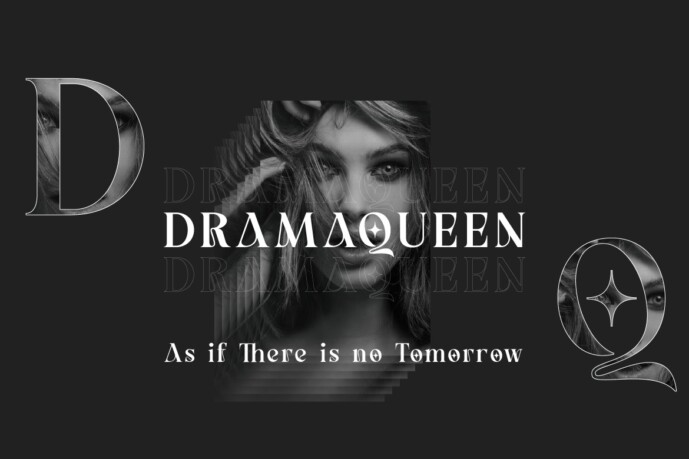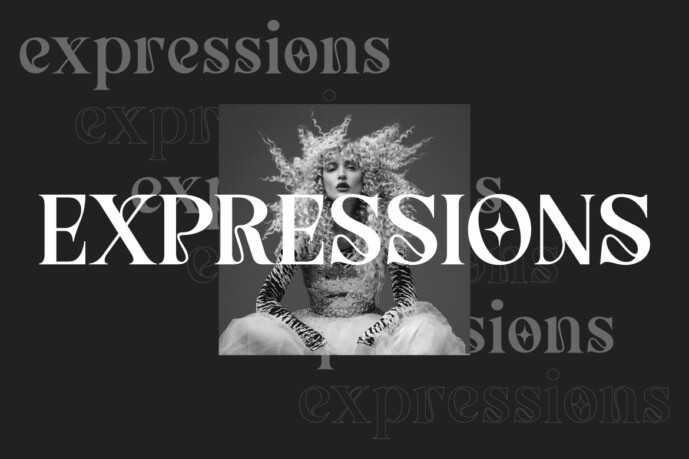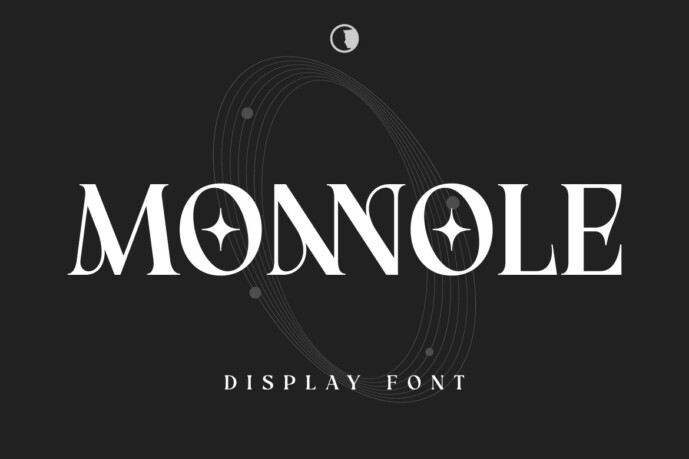
Monnole Font
Designer: skillyasstudio
Monnole Font is a free-writing inspired Beauty display font with a bold and bright feel.
Monnole is perfect for all design needs: branding, logos, handwritten quotes, product packaging, merchandise, blog design, modern advertising design, invitations, artistic quotes, home decor, book/cover titles, invitations, special events, birthdays, personalized mugs, pillows and many more.